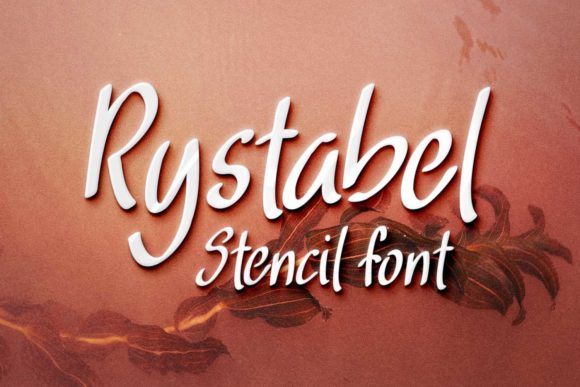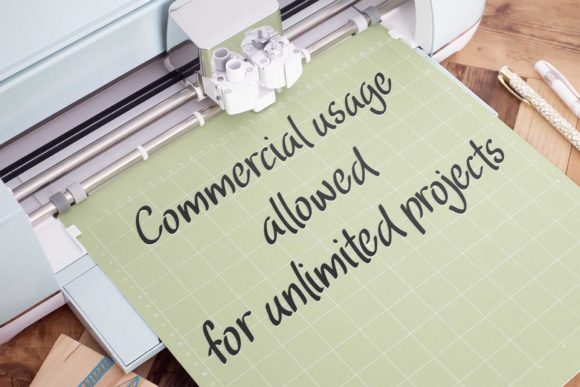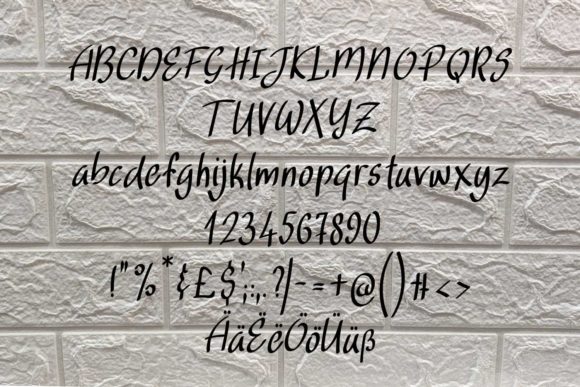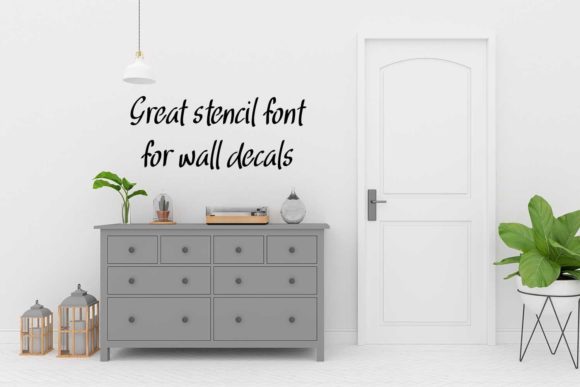
Rystabel Font
About the Rystabel Font
Explore the possibilities with Rystabel Font, a font that offers both beauty and functionality. Rystabel is a carefully crafted handwritten stencil font. Suitable to a wide variety of designs due to its neat and simple style, this font has the potential to become your favorite go-to font, no matter the occasion!
Rystabel’s clean stencil style excels in headlines, short text blocks on posters or packaging, and branding elements requiring a touch of handcrafted authenticity. Its legibility is best suited for larger sizes; avoid using it for body copy or long paragraphs. The font’s slightly informal yet neat nature makes it unsuitable for UI elements or situations demanding strict professionalism.
Its personality is best described as friendly and approachable, yet bold and confident. Brands focusing on crafts, small businesses, or products with a handmade feel would find Rystabel particularly effective.
Consider pairing Rystabel with a clean sans-serif like Lato for a balanced contrast, or a classic serif like Garamond for a more refined and traditional feel. A playful script font could also be used sparingly for accents, provided it doesn’t overpower Rystabel’s distinct character.
Rystabel Font Usage Examples
Rystabel Font Example